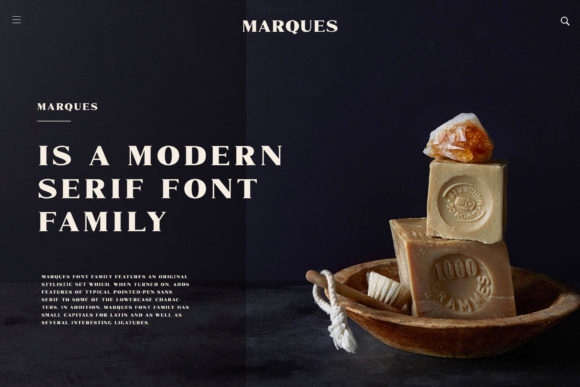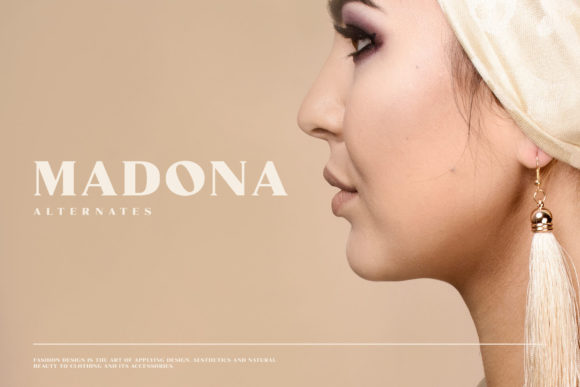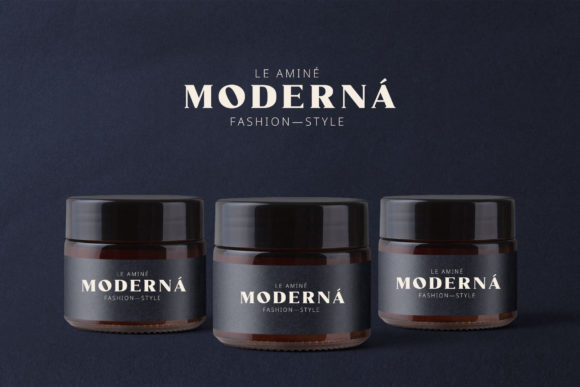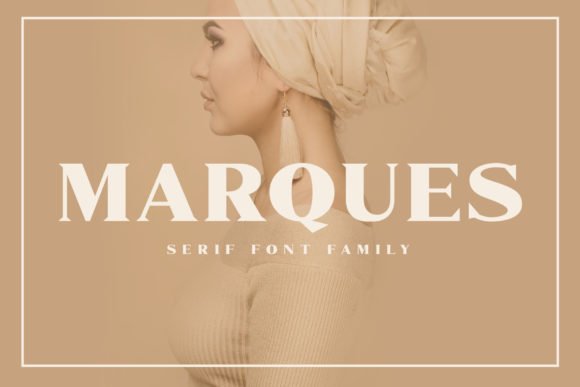
Introduction to Marques Family Font
The Marques is a modern serif family whose design refers us to the style of modern sans serif.
The distinctive features are the relatively low contrast of strokes, the slightly squarish shapes of round characters and the emphasized business like simplicity It features an original stylistic set which, when turned on, adds features of typical pointed-pen sans serif to some of the lowercase characters.